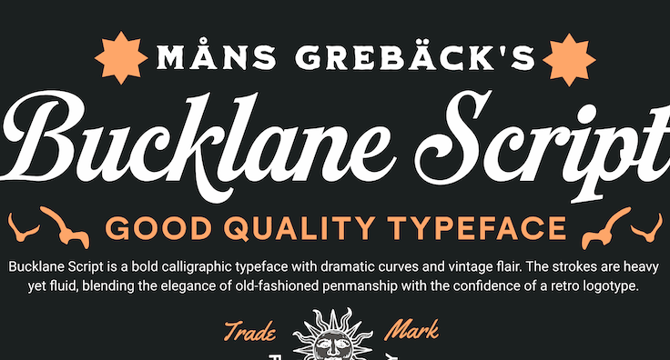
Bucklane Script is highlighted as a stylish and elegant handwritten font choice that adds warmth and personality to designs.
The font stands out for its natural, handcrafted feel, retaining imperfections that mimic real handwriting.
It is recommended for use in various design projects such as wedding invitations, boutique branding, social media graphics, and handwritten-style headlines.
The post showcases Bucklane Script as a free font option and emphasizes its versatility in adding a personal and artistic touch to different design materials.